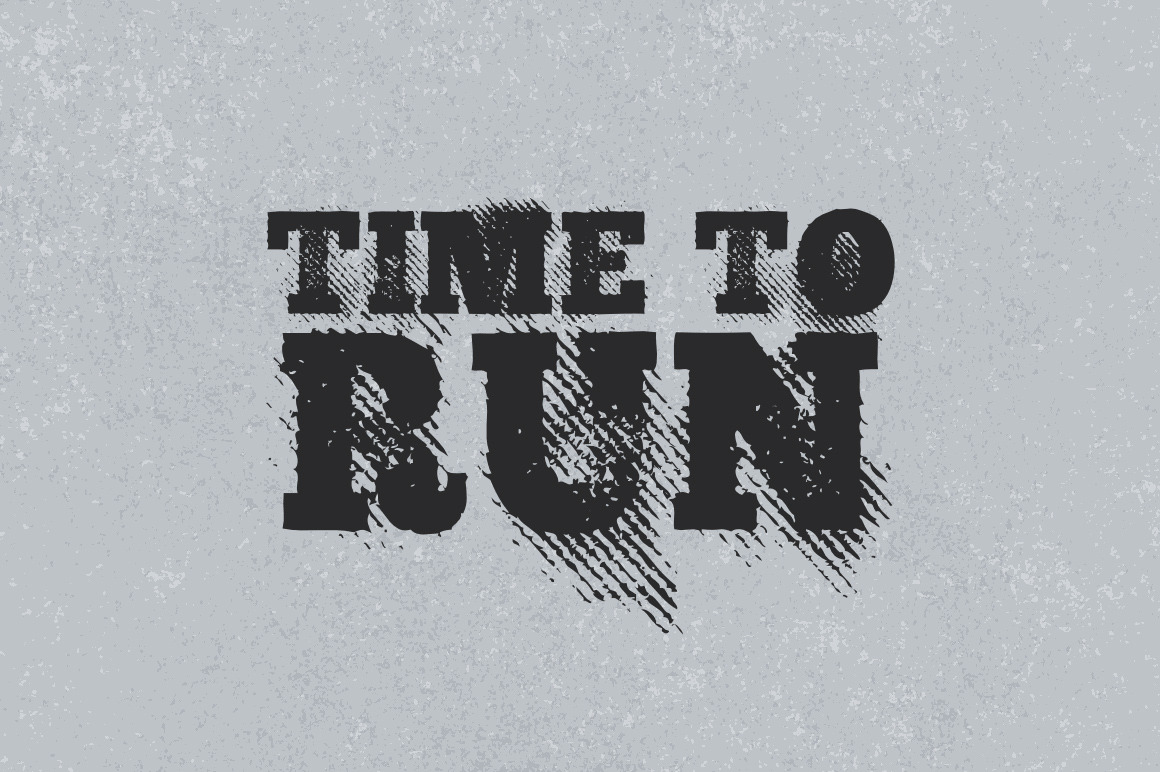
Time To Run - Gritty Halftone Font
Time to Run is a grungy font with gritty halftone lines and a strong, bold serif. It’s a font that is meant to stand out and grab attention. Time to Run is perfectly suited for print design, especially for big titles on posters or book covers. The halftone lines add texture and a realistic dimension to your designs that separate this from your average bold serif font.